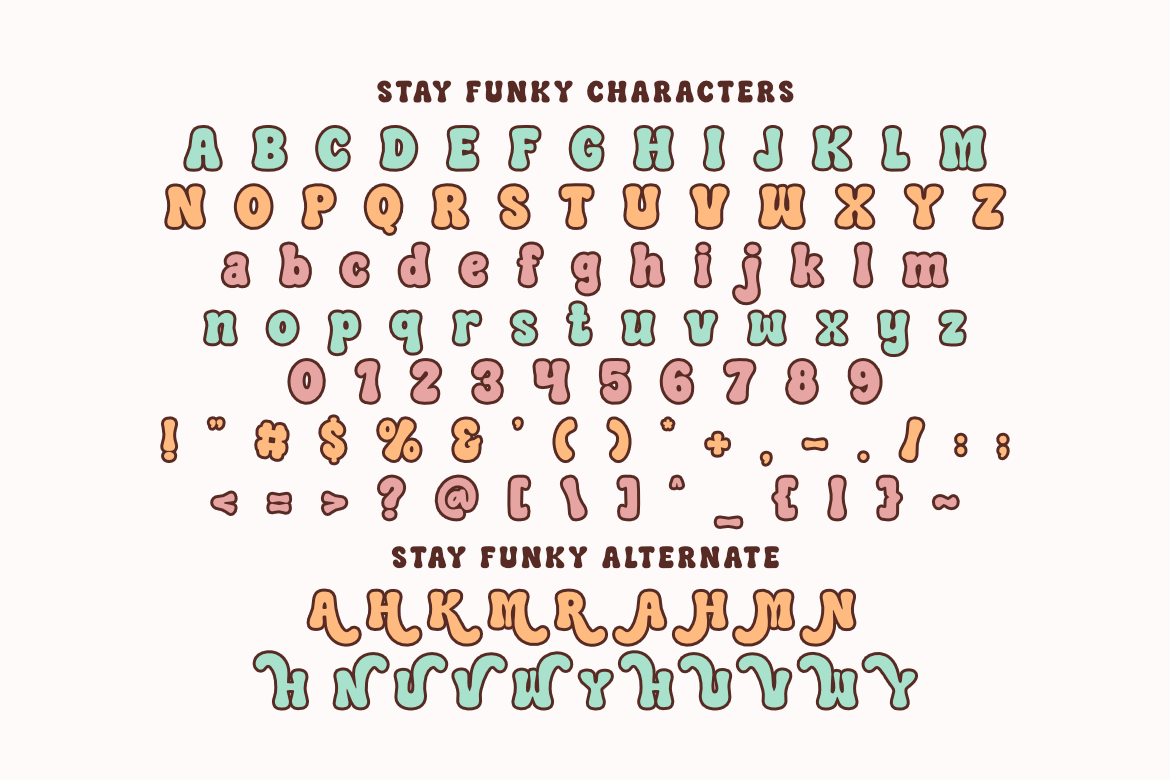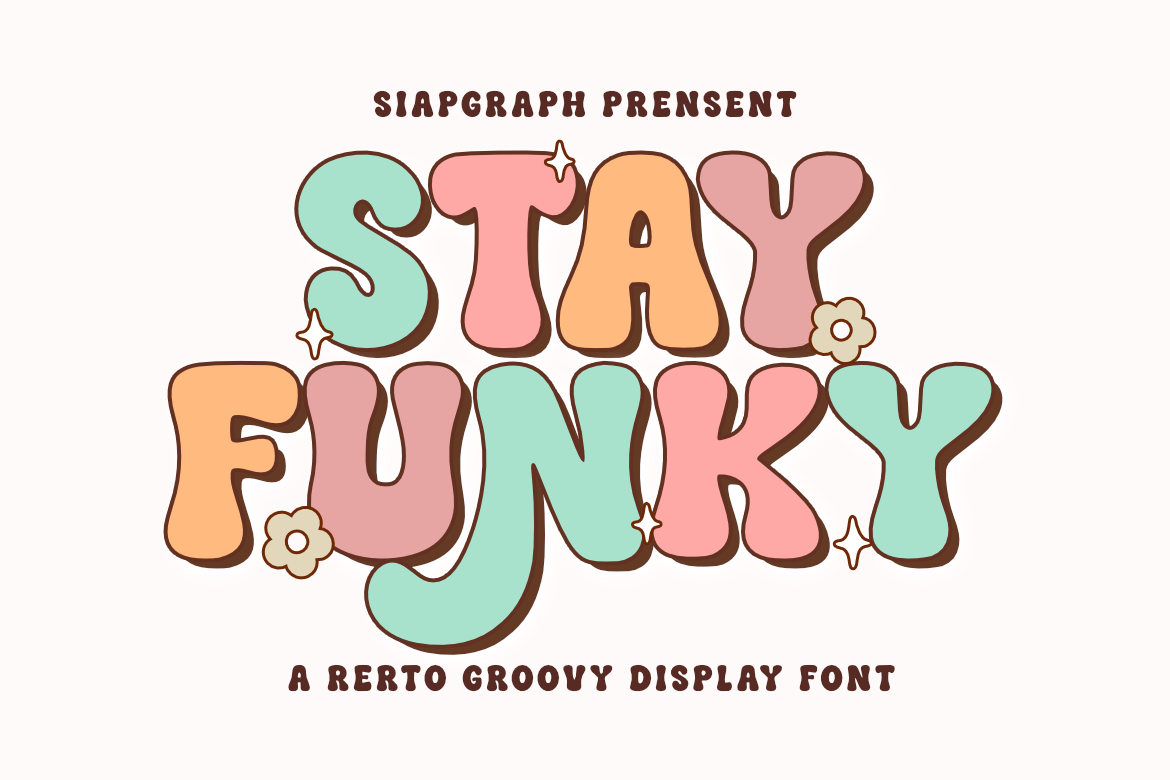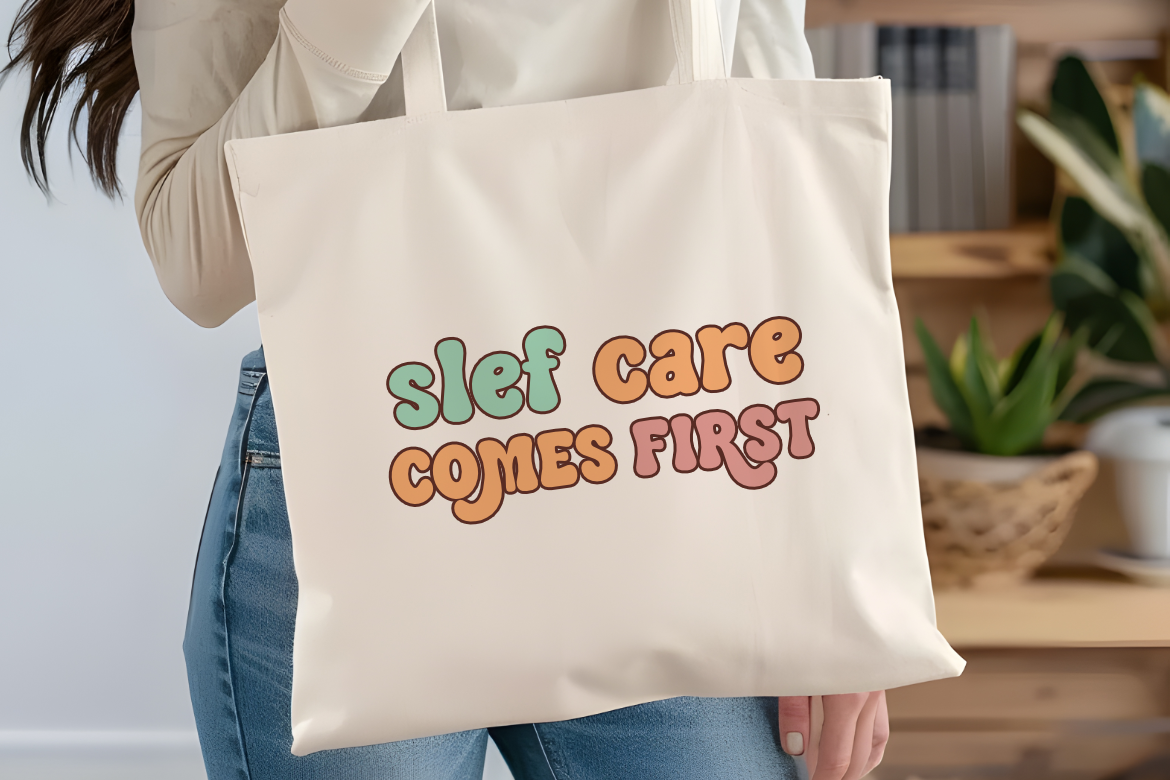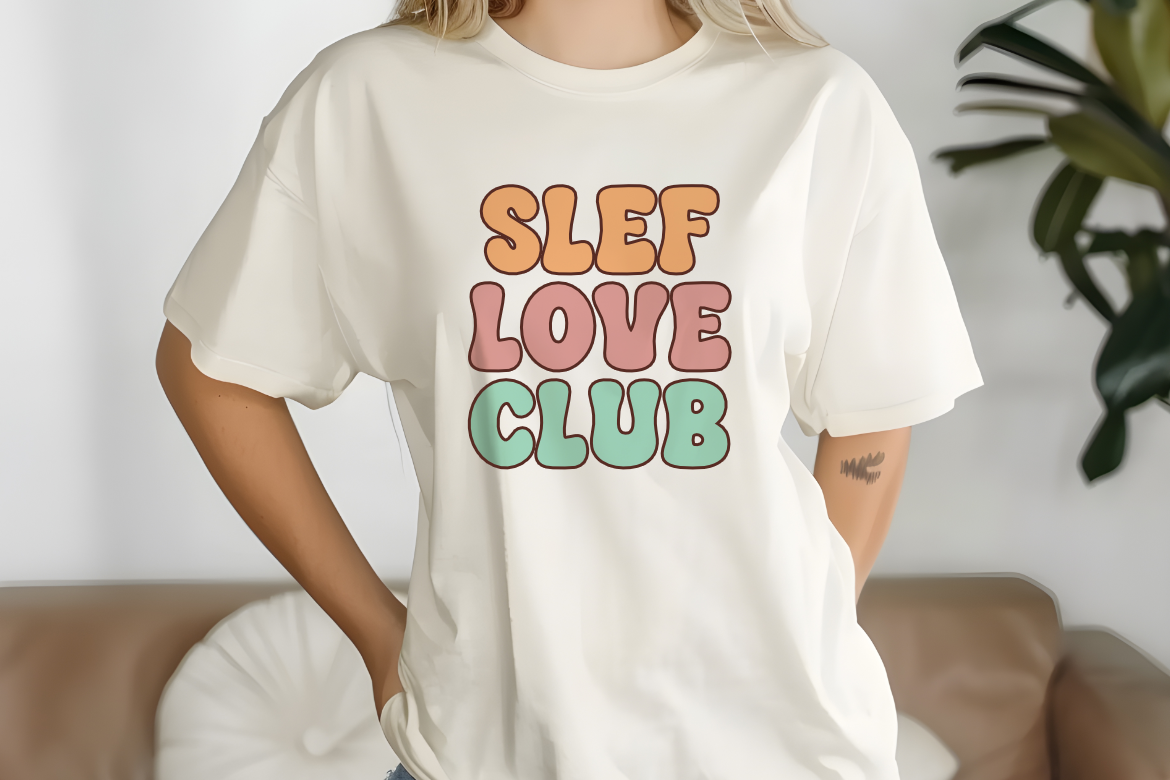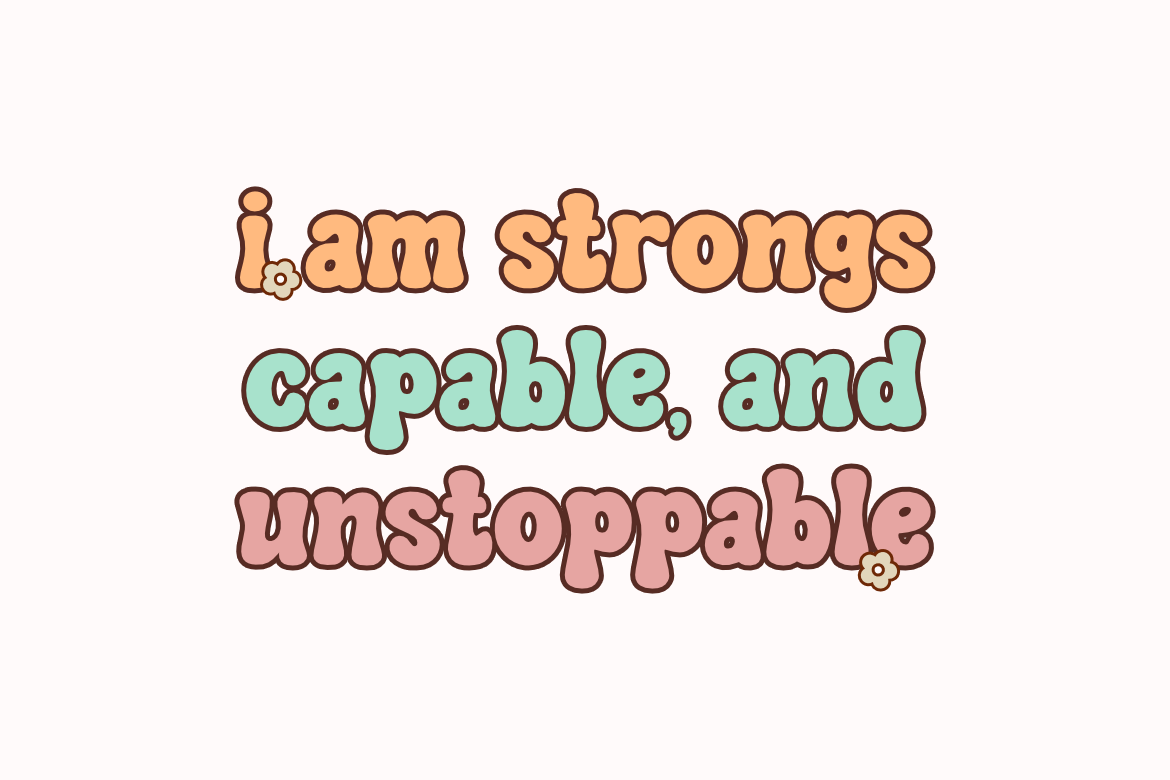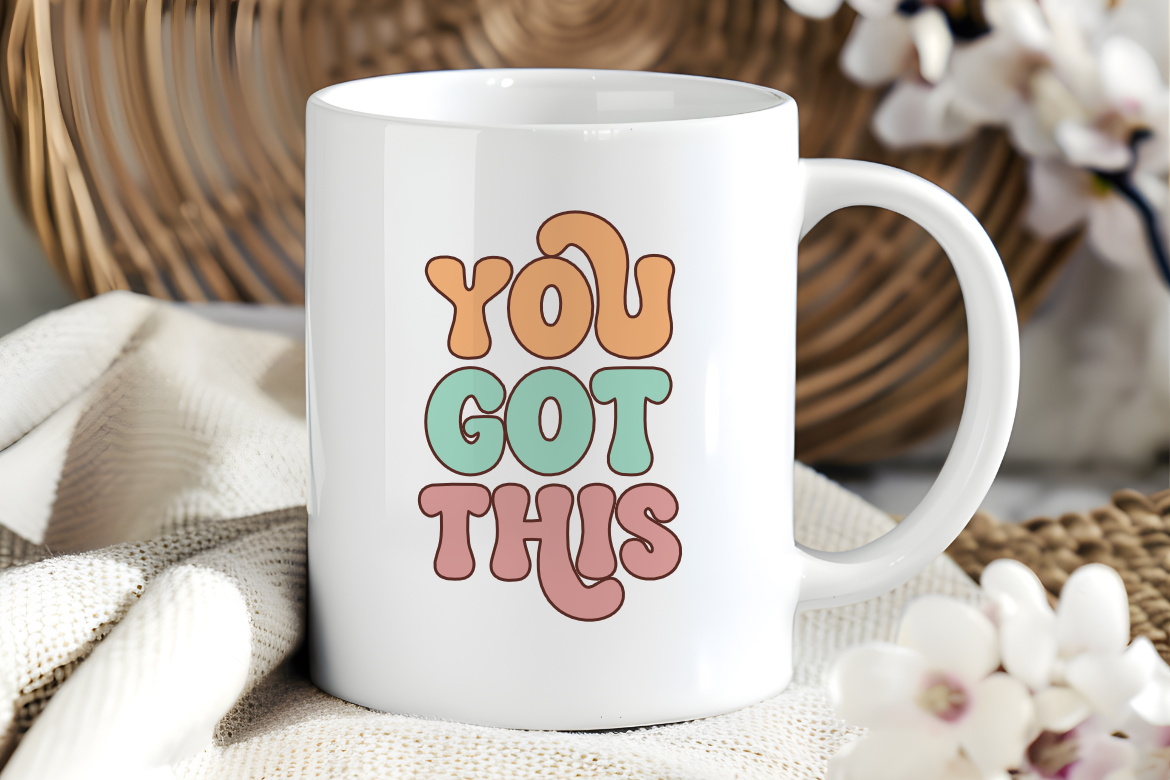
Stay Funky - Cute Retro Groovy Font for Cricut and Sublimation
Bring your ideas to life with Stay Funky, a charming and cute retro groovy display font that exudes playfulness! Its soft curves and bold appearance are perfect for creating eye-catching headlines, posters, social media graphics, and branding. Add a dreamy touch to your designs with this delightful font that’s both fun and versatile.